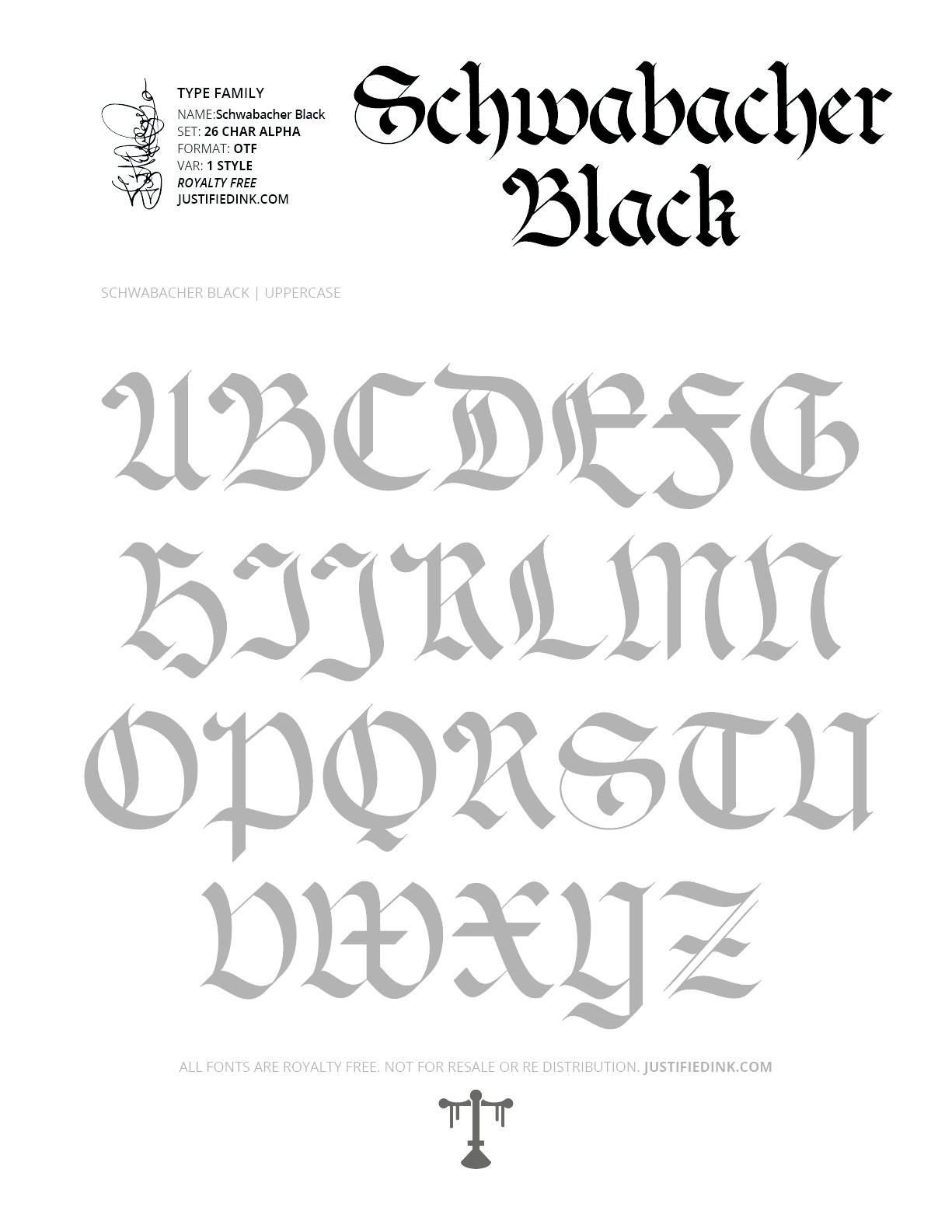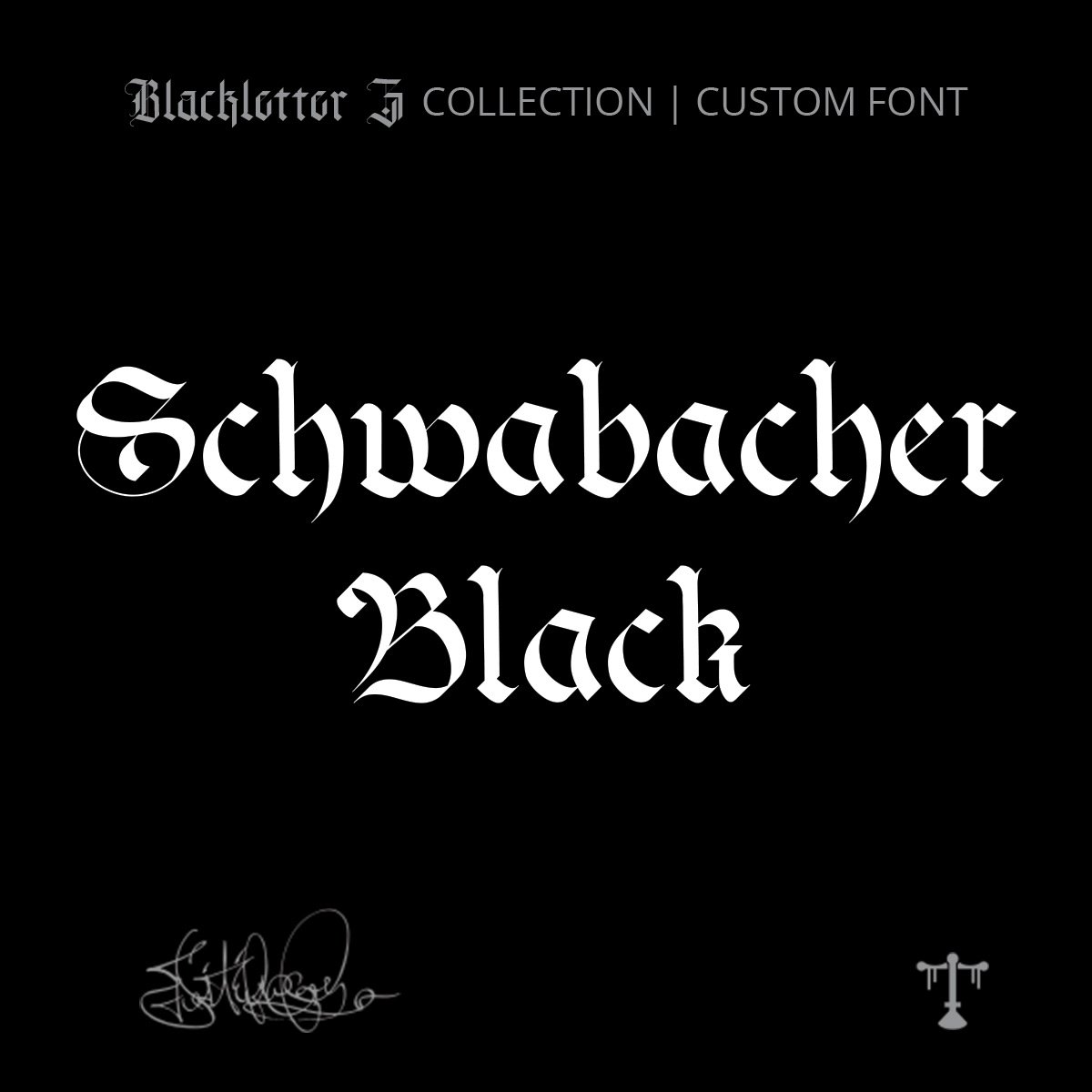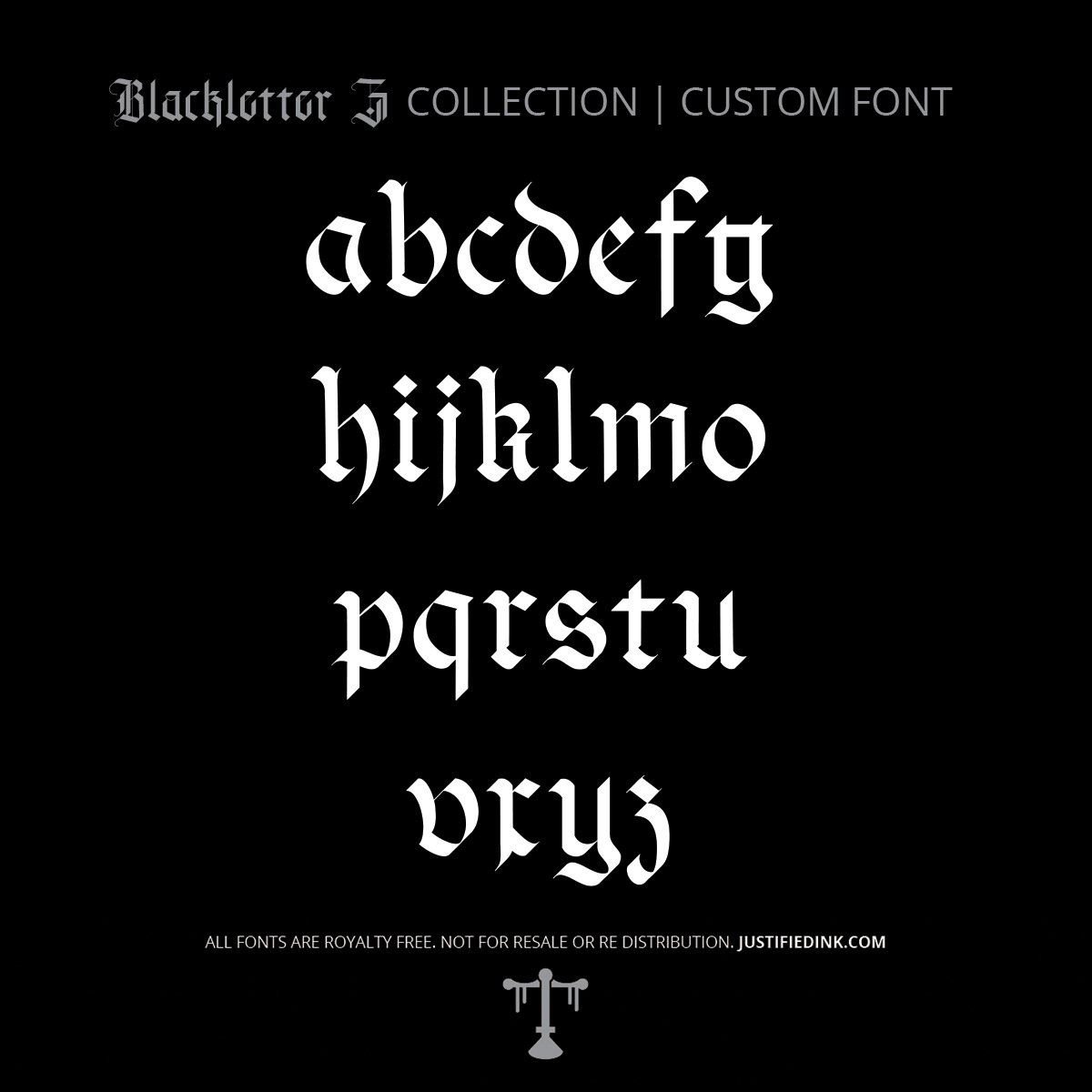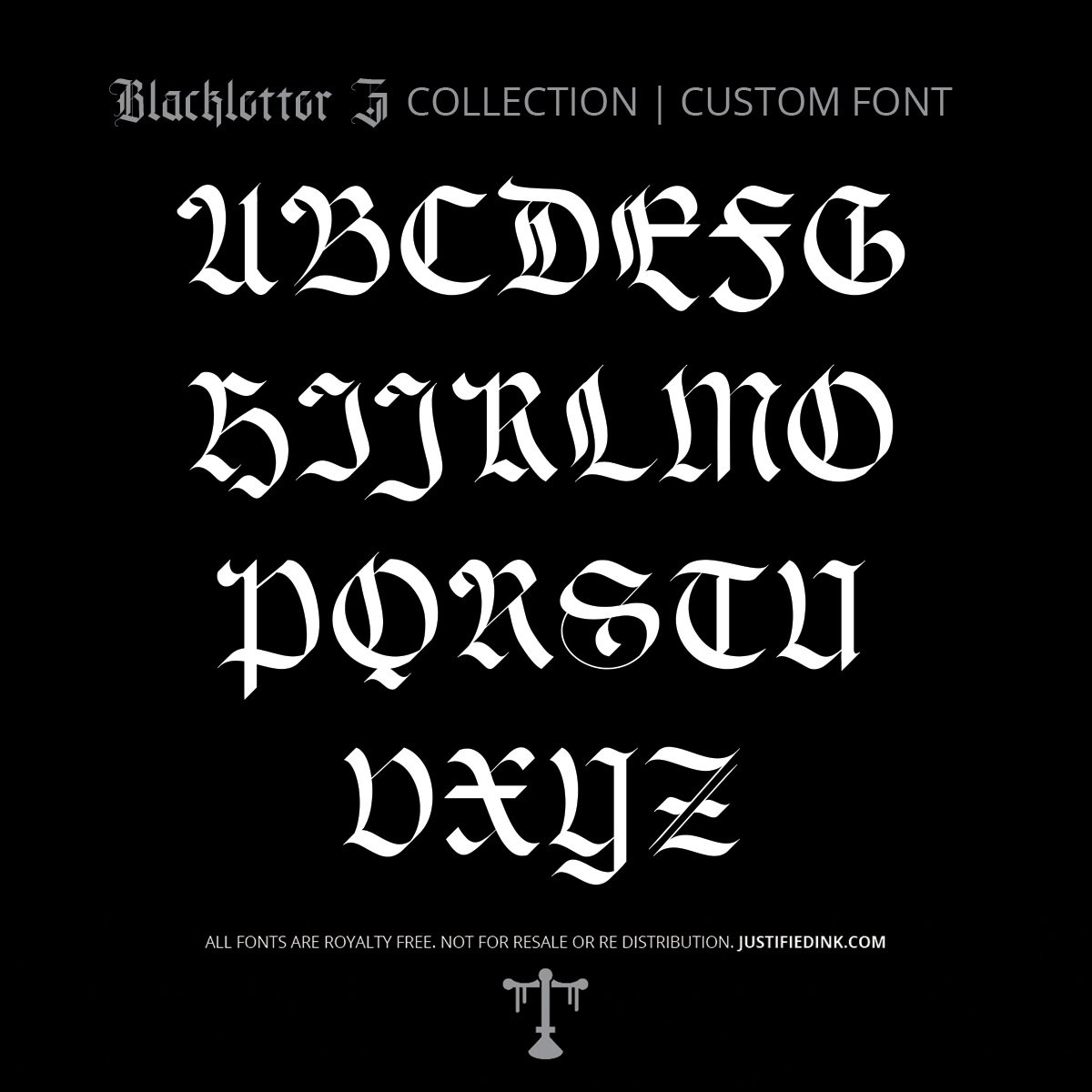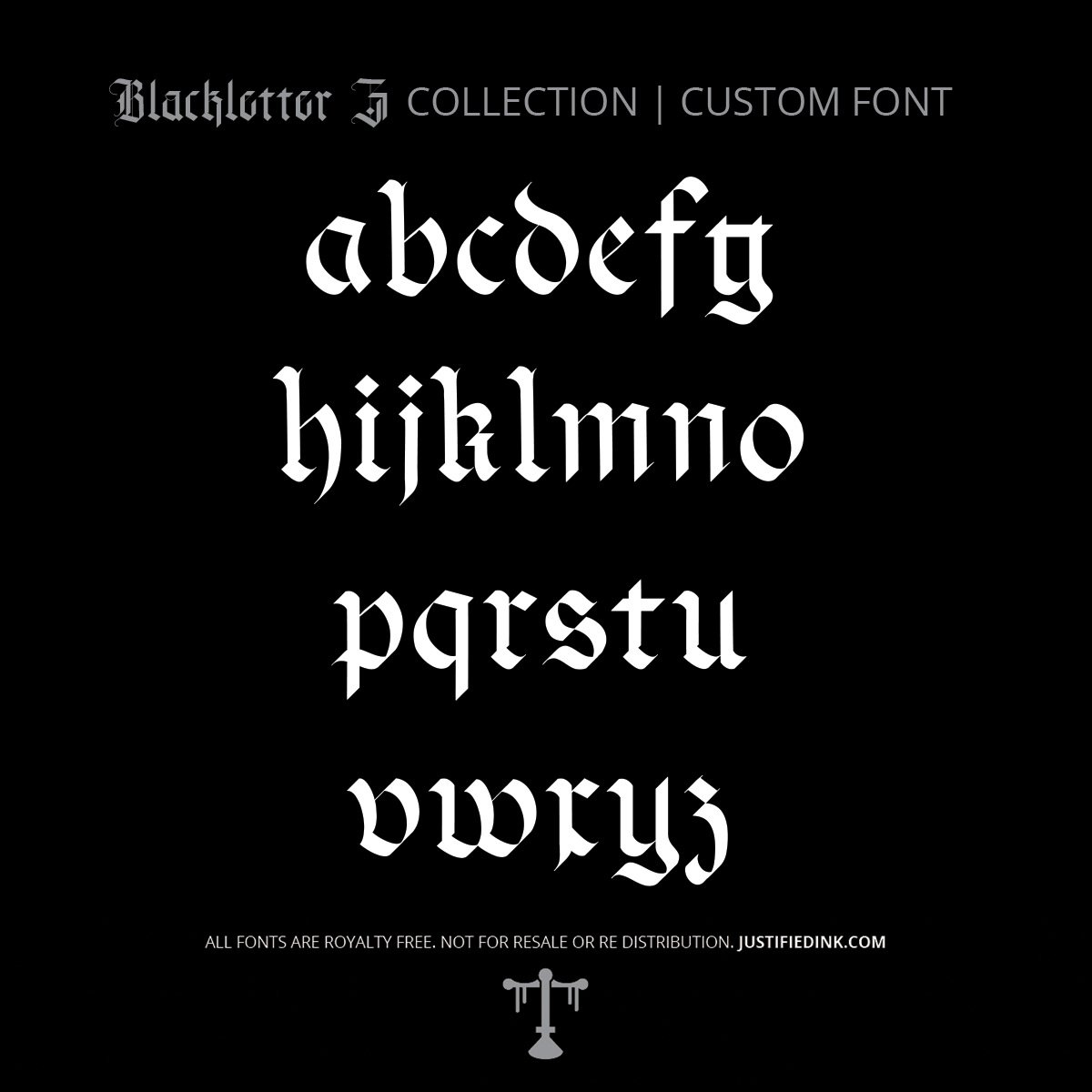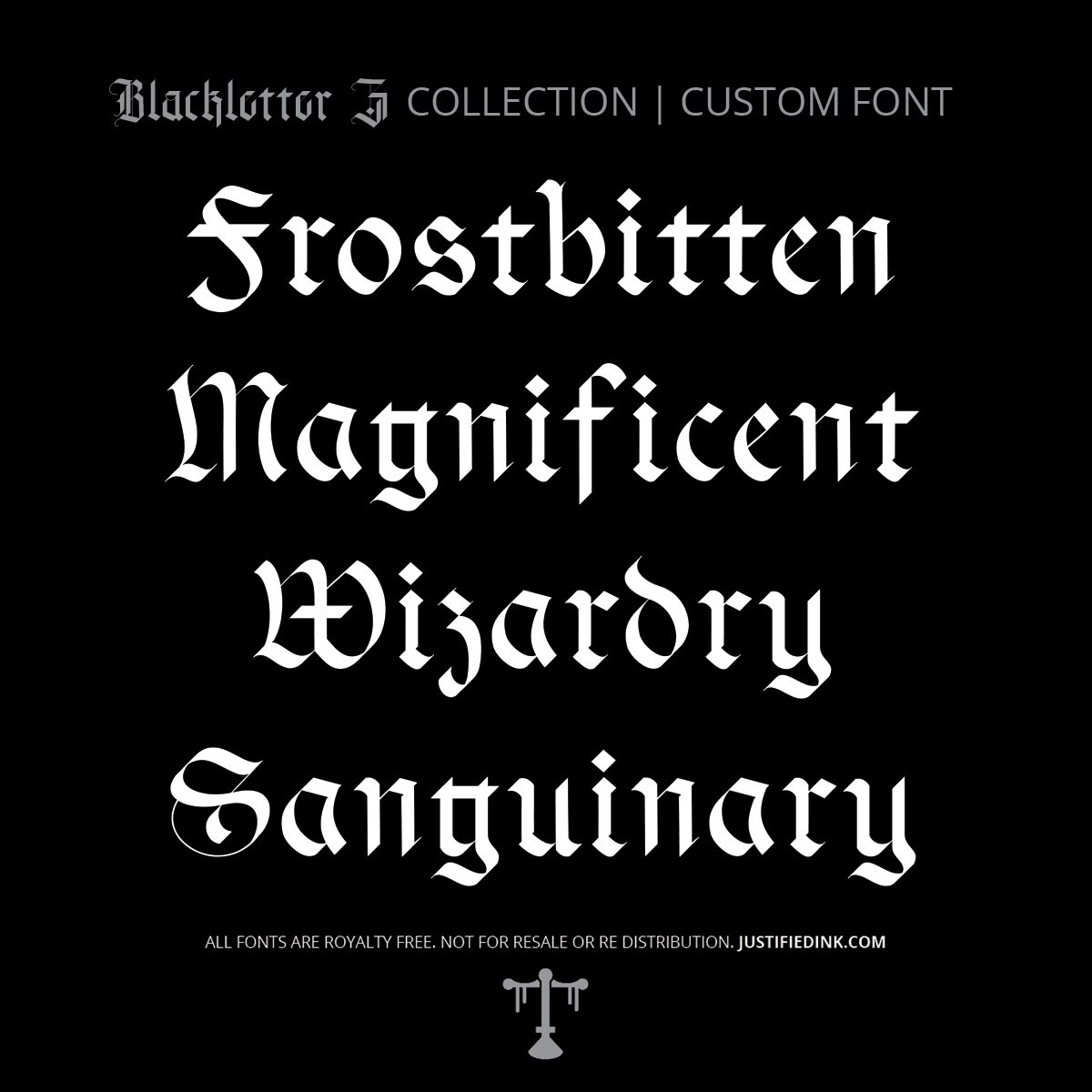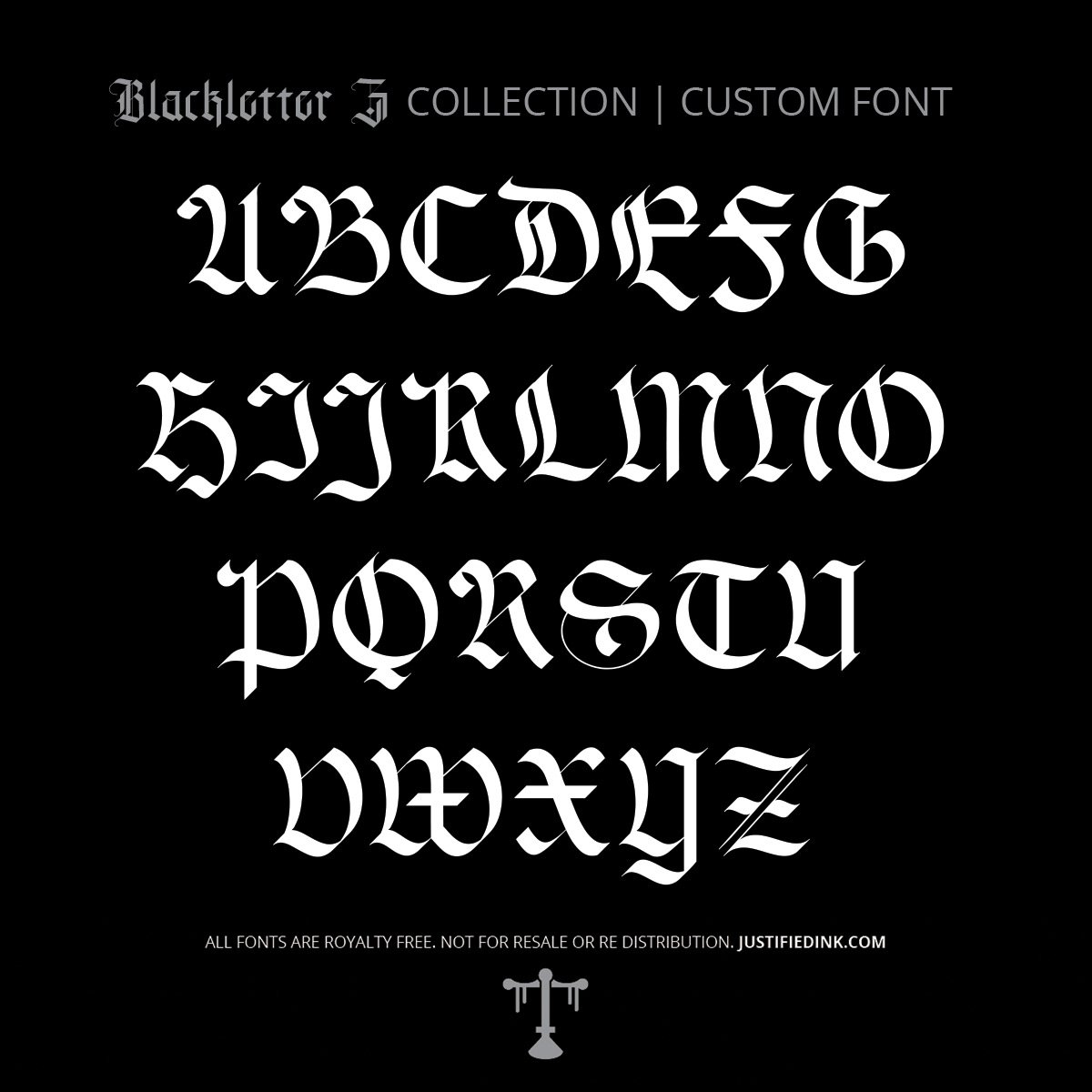
Schwabacher Black (1 style) - Custom Font
Dark German Script, Amplified
Schwabacher Black deepens the historic German script into a heavy, uncompromising gothic font. With dramatic angles and thick forms, it channels centuries of tradition into letters that strike with authority. Perfect for gothic lettering projects, logos, or tattoo script with a historical core.